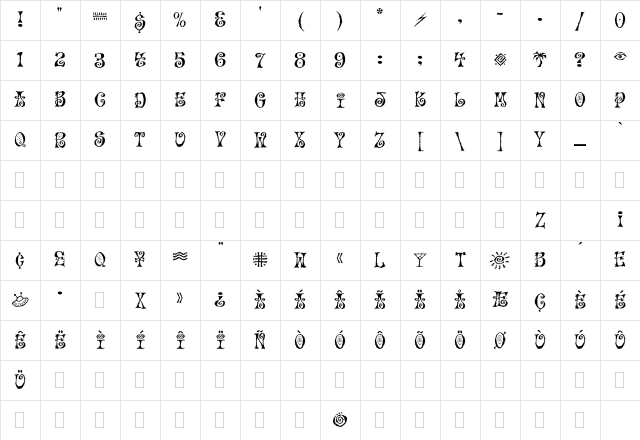
Mo Funky Fresh Plain
Design Context for Mo Funky Fresh
Mo Funky Fresh has an approachable, lighthearted character - its loose, expressive forms are well-suited to children's content, casual branding, and fun-first design.
Font Pairing: Pairs well with a rounded or humanist sans for body copy, maintaining the friendly tone without relying on Mo Funky Fresh to carry extended reading.
Pro Tip: Use Mo Funky Fresh at larger display sizes where its expressive character can land. Pair with a clean, simple sans for body copy to maintain readability.